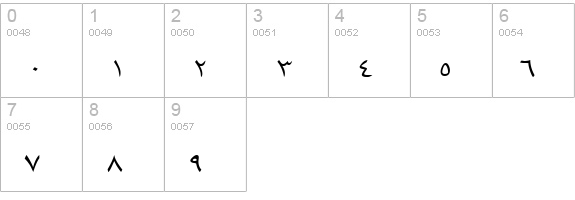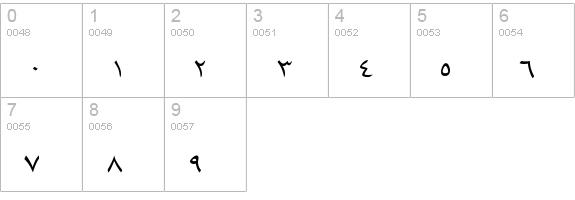
B Hamid Font Details
B Hamid font is a stylish and modern typeface that exudes sophistication and elegance. Its sleek lines and unique design make it perfect for a wide range of projects, from branding to editorial design. This versatile font is sure to make your text stand out and leave a lasting impression on your audience. The best part? B Hamid font is available for free download at FontsMarket.com. So whether you're a designer looking to add a touch of class to your work or a business owner in need of a professional-looking font for your marketing materials, B Hamid font has got you covered. Don't miss out on the opportunity to elevate your designs with this stunning font – download it for free today!